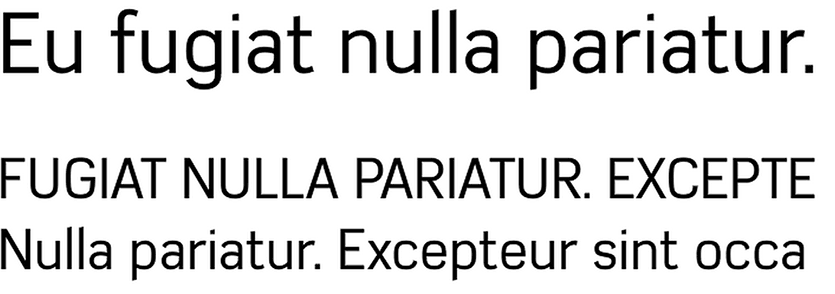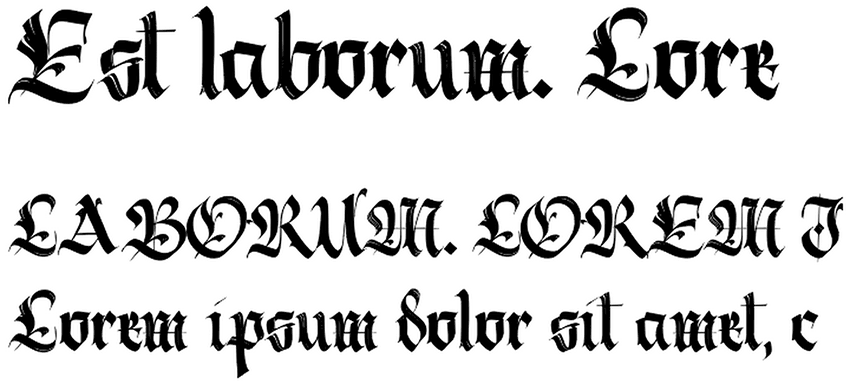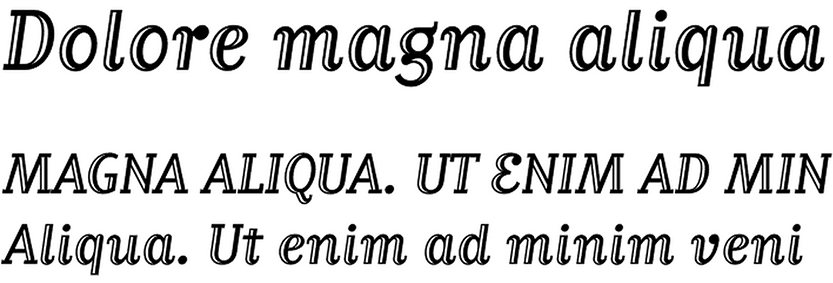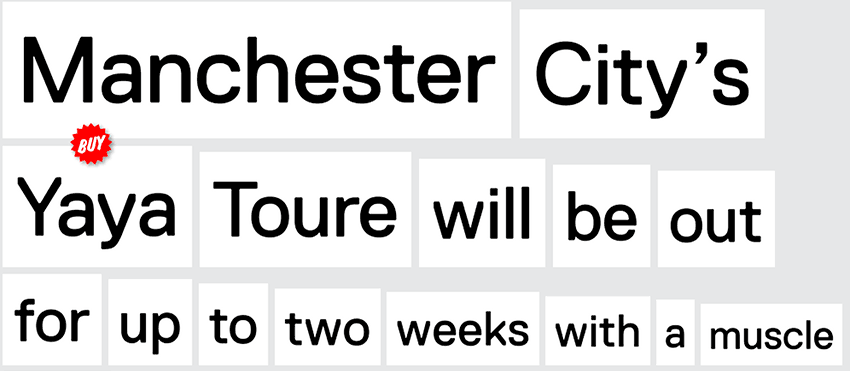
Tim Guy, Creative Director at Google
I would have to say my typographic alter ego is Replica/Bold by Dimitri Bruni & Manuel Krebs at Norm.
There is something immediately comfortable about the typeface. Yet the more time you spend with it, the more of the details you appreciate — while never becoming precious. The letterforms themselves adhere to a tight grid but this structure allows for a flexibility in the ways it can be used to express different ideas.
I’d like to think this is somewhat true of myself and process.
But it could just be, that this method of self-examination is pointing to a thinly veiled desire for Fred Woodward’s career.
Lawrence Azerrad, Principal at LAD Design
I can't get away from Azbuka. I'd call it an alter ego typeface. I've used it in my studio's materials for years. A sans serif without being the typical grotesque (Helvetica, Akzidenz, Univers), the squareness helps to give it some elegance, but it's not overly square, which would make it too digital or computer-y. Azbuka has roots in Cyrillic characters, so it just has a strong design heritage to it while remaining understated. As an alter ego, the typeface reflects designer-ness, without screaming "look at me", something I aspire to.
Eric Graves, Senior Designer at Baker Brand Communications
I don't know that I have one. Perhaps it's yet to be discovered in some dusty type drawer in a small southern town somewhere: Southern Italy or Southern Carolina, either would suit me just fine. But I can tell you of an enduring typographic fascination and enthusiasm if that counts. It would be black letter. Frakturs and many others. It's my typographic hometown. The place from which I set out, abandoned but cannot escape. As a kid in 5th and 6th grade, I graduated from notebook doodling to calligraphy and spent hours and hours trying to perfect those gorgeous black-letter double strokes, liquid curves and swashes. They seemed so fascinating to me. They were a mystery I could never quite understand. I still can't, and I am jealous of others who can.
Now when I look at that type of writing, I see so many more things. I can't believe that one hand style can connote piety, in one context, and, murder in another. Gargoyles, and prison gangs. Church spires and Compton alleys at the exact same time. Perhaps it's utterly appropriate that these letterforms are still soaked in duality, given their source. It still surprises me how well it works in all these different ways on movie posters, street tags, tattoos and logos. And it makes me want to see if I can do that.
David Ly, Jr. Art Director at Designory
After a few drinks in my system, my friends tell me that my "alter ego" comes out where I become a little more talkative, daring, and adventurous. My buddies call me "Liquored-Up Ly" when that happens, as I'm typically a quieter and somewhat reserved. The funny thing is that I still try to keep my composure and stay as classy as possible no matter how red my face turns, but my alter ego eventually takes over and makes an appearance. The typeface that I think somewhat reflects my alter ego is Matrix Inline Script because it's a little looser and playful, but still possesses some classical elements with the serifs.